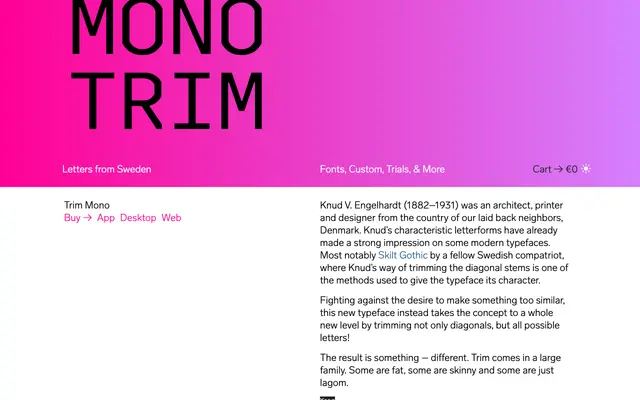
Trim Mono
Letters from Sweden · Göran Söderström · 2013
A monospaced typeface by Göran Söderström that extends the stem-trimming technique associated with Knud V. Engelhardt's letterforms to every possible character.
Where typefaces like Skilt Gothic selectively trim diagonal stems as a stylistic device, Trim Mono applies the same principle indiscriminately across the entire character set, producing something noticeably eccentric. The family spans at least three weights from Light to Bold. Latin script coverage is broad, including extended characters for Nordic and Central European languages.
A monospaced typeface with a distinctive geometric character derived from systematically trimming stems and diagonals, placing it firmly in the geometric mono category.